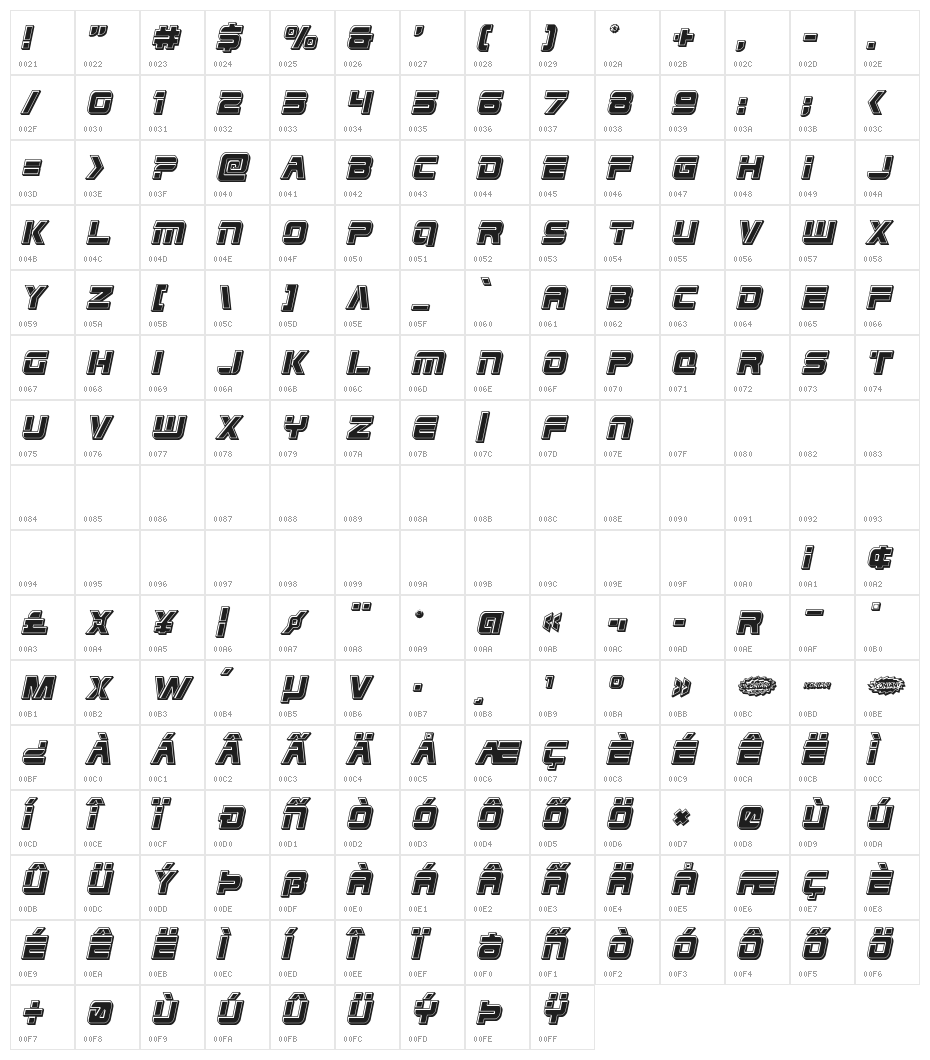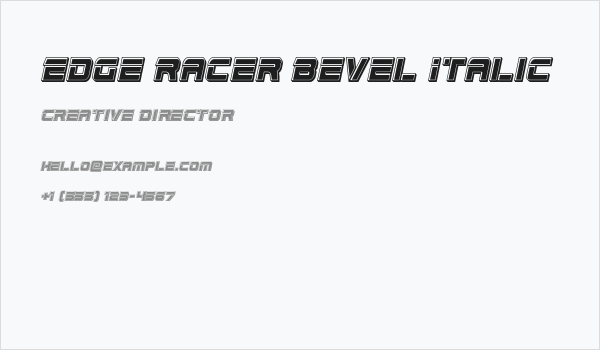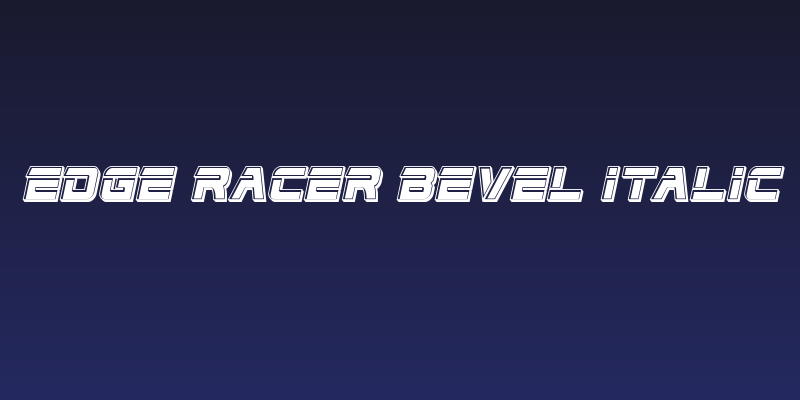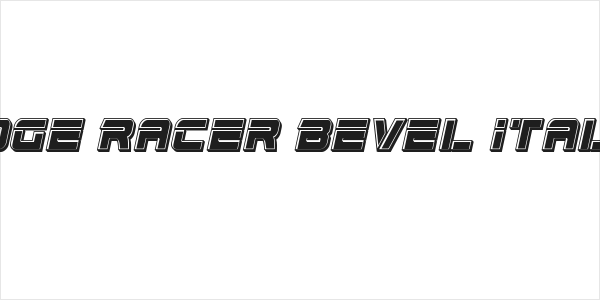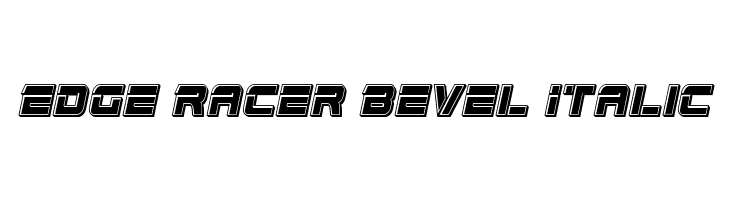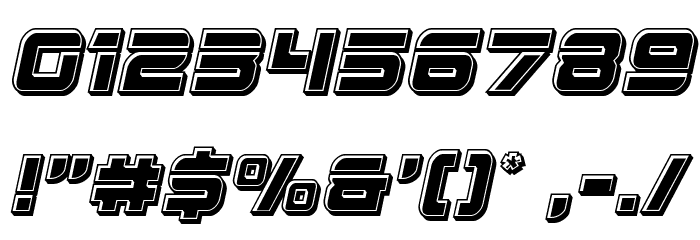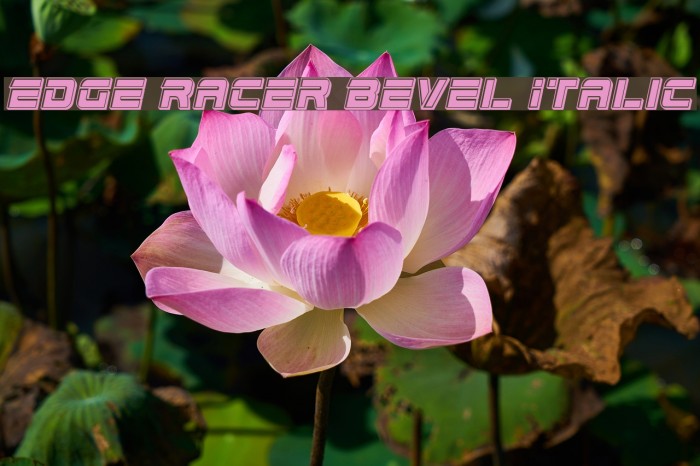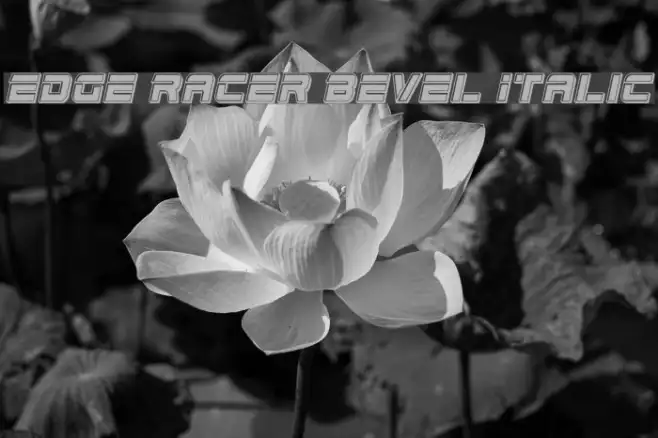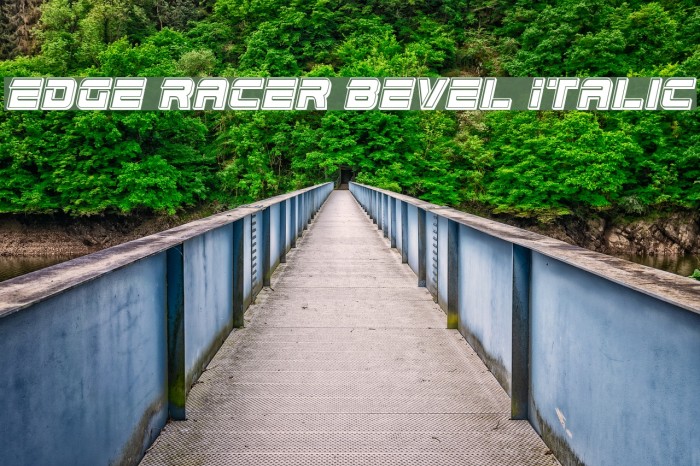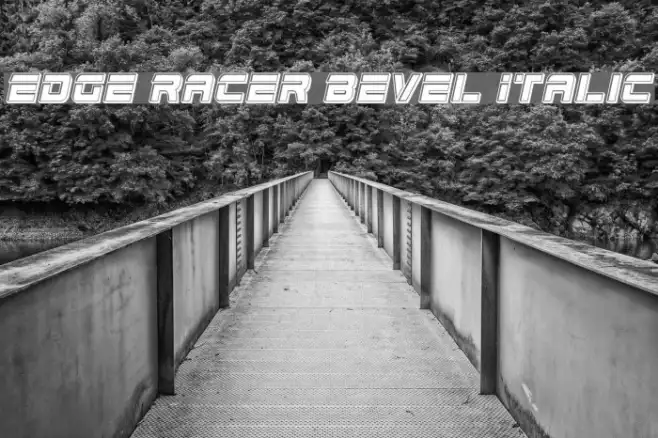
Edge Racer Bevel Italic Font
Edge Racer Bevel Italic Description
This font features a bold, italicized style with a distinct beveled edge that gives it a three-dimensional appearance. The characters are designed with a futuristic and dynamic flair, making them stand out with their sharp angles and clean lines. The uppercase and lowercase letters maintain a consistent style, with the uppercase being slightly more pronounced. Numbers and special characters are equally stylized, ensuring a cohesive look across all text elements. The font's unique design makes it ideal for projects that require a modern and edgy aesthetic.